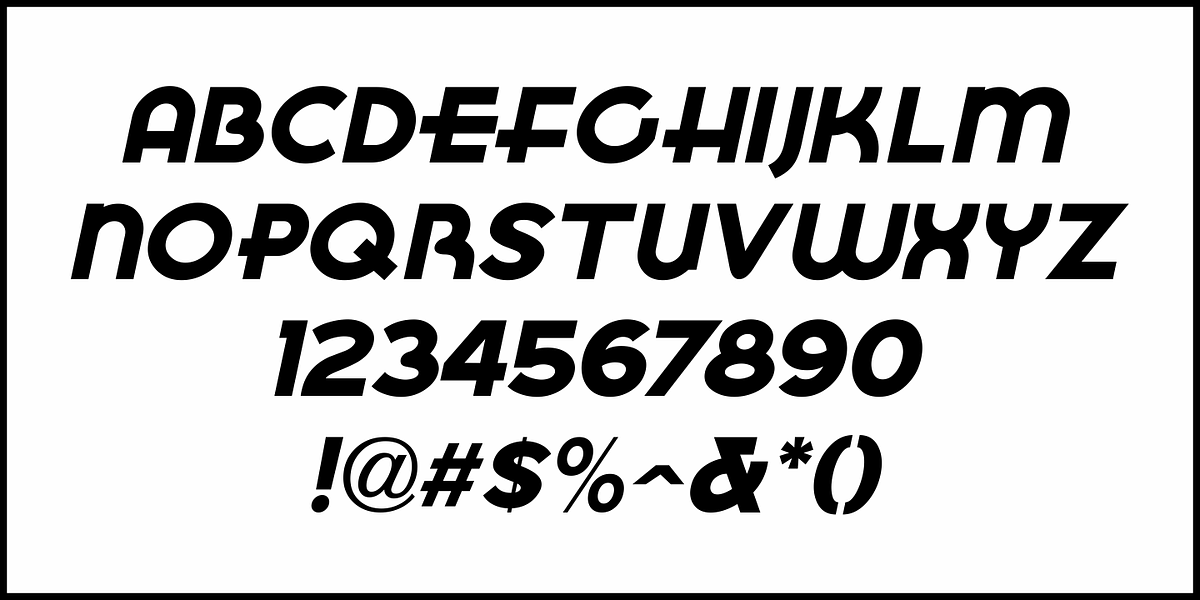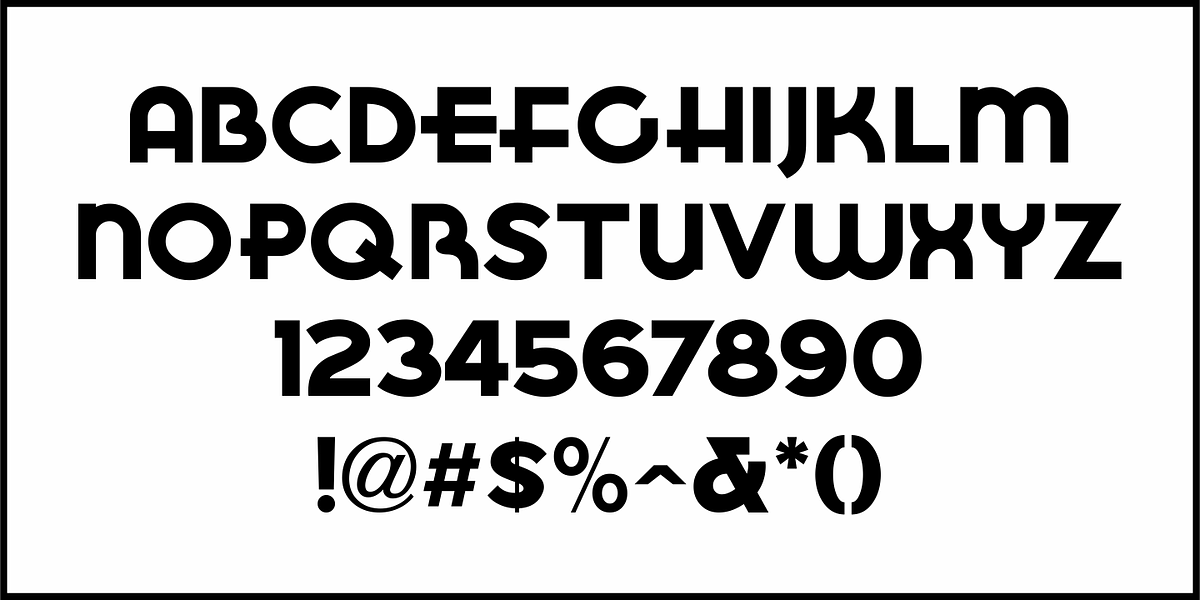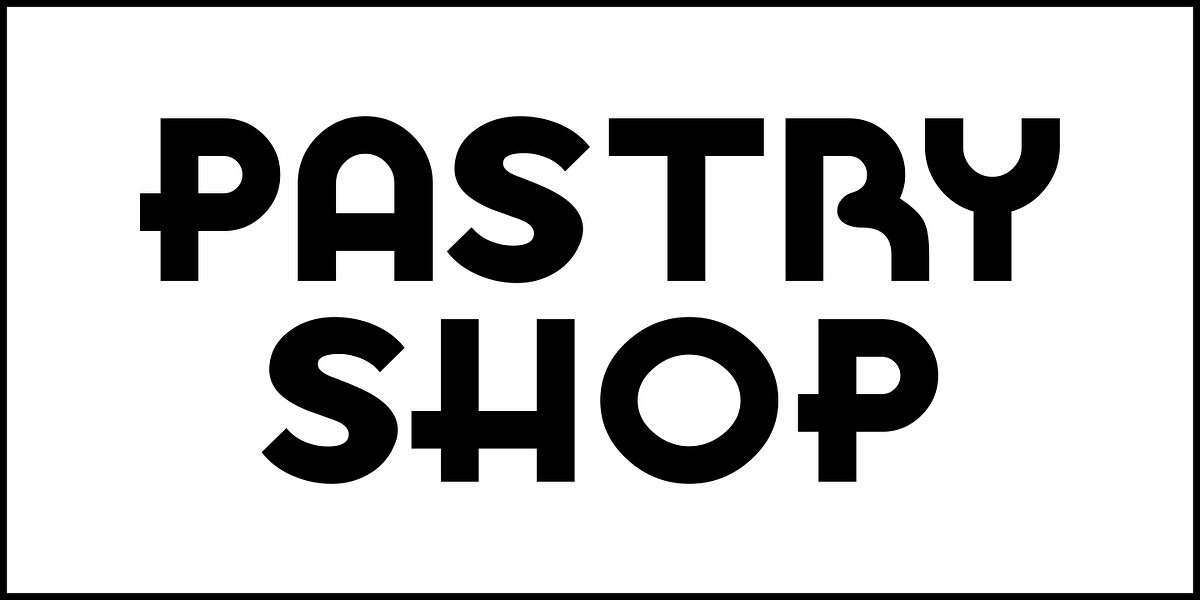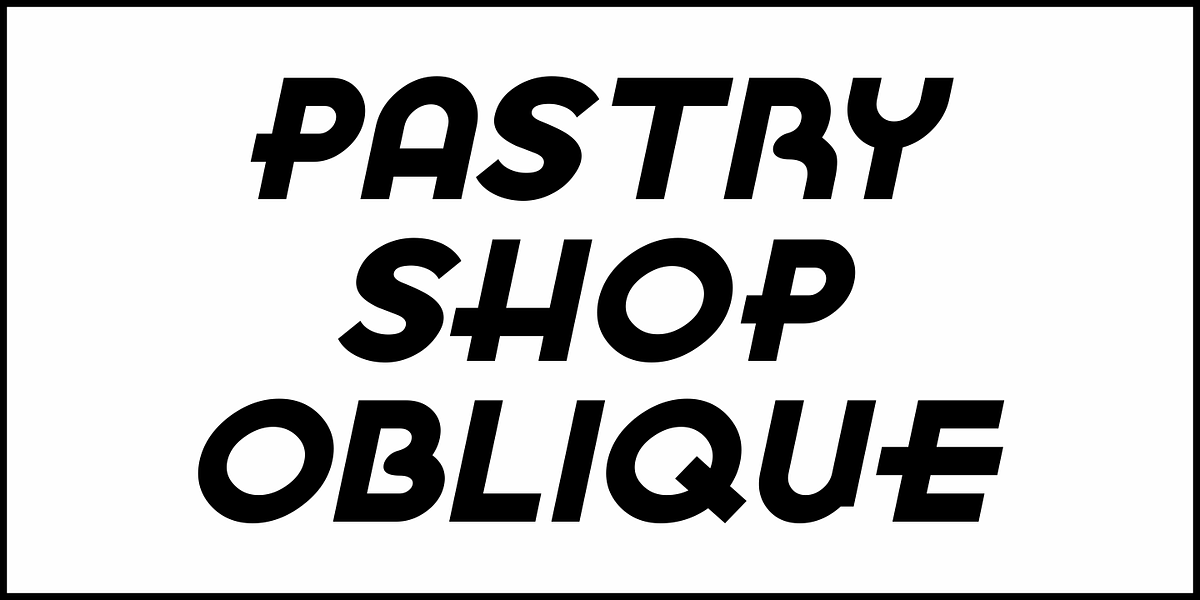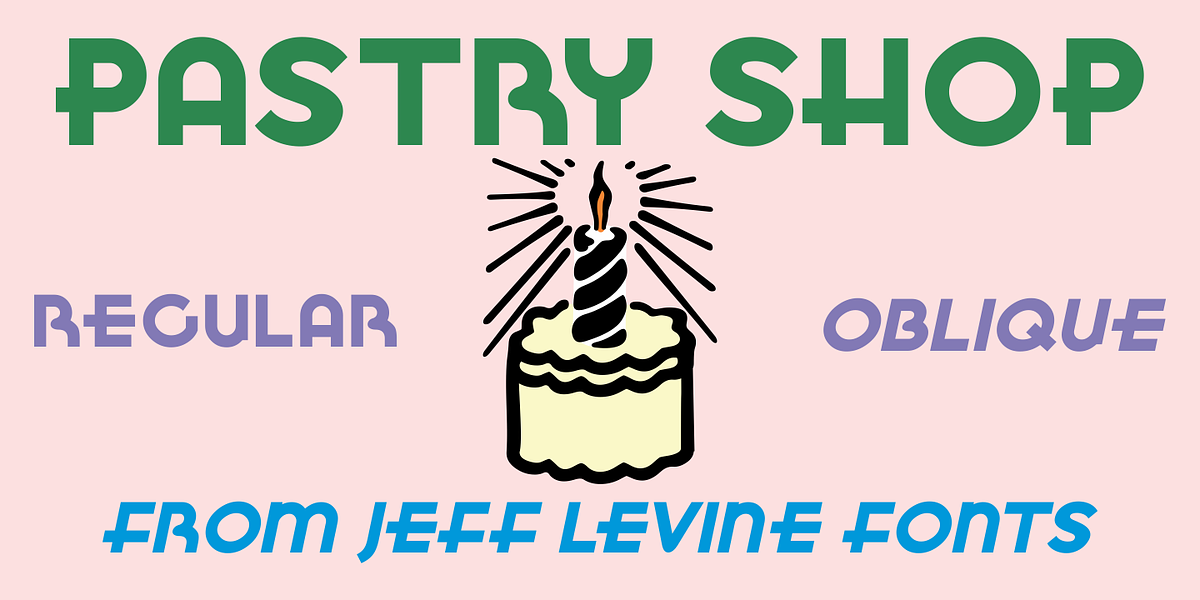
Pastry Shop JNL
In the 1960 edition of Sam Welo’s “Studio Handbook – Letter and Design for Artists and Advertisers” you’ll find a bold, hand lettered Art Deco sans serif typeface designed by Welo with a decidedly 1930s-1940s look.
This is now available as Pastry Shop JNL, in both regular and oblique versions.